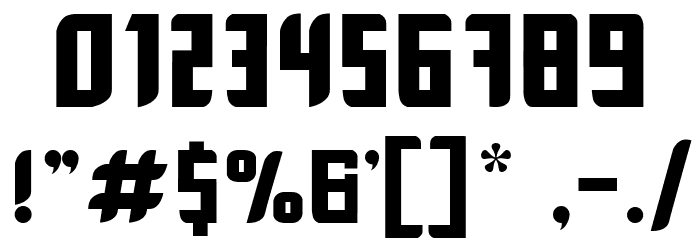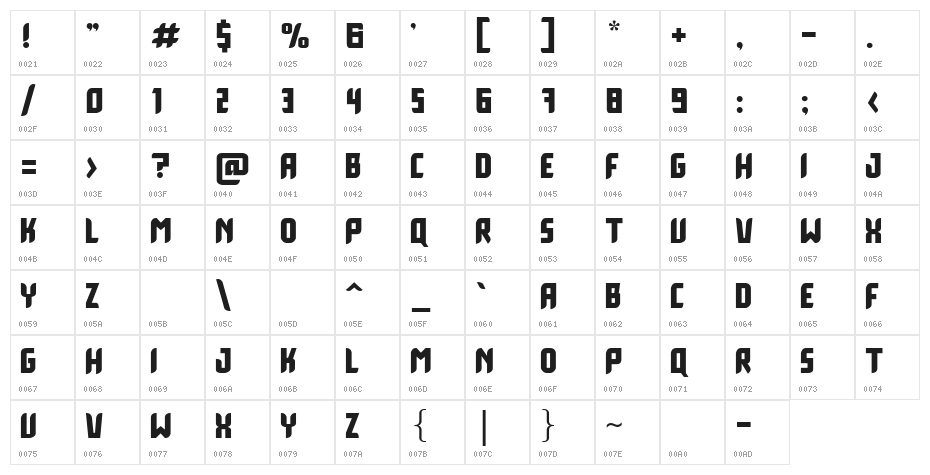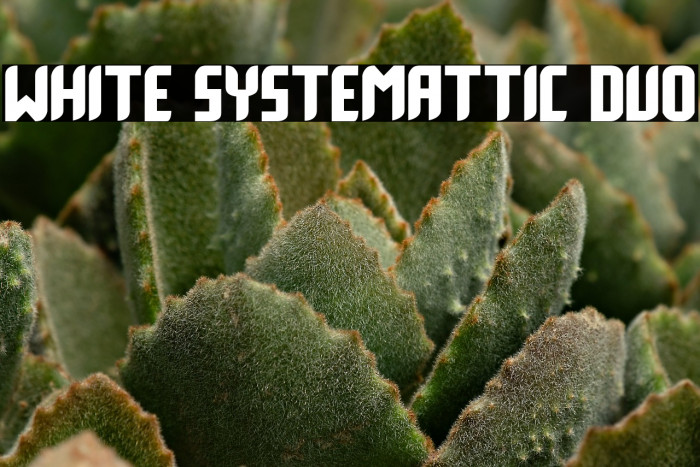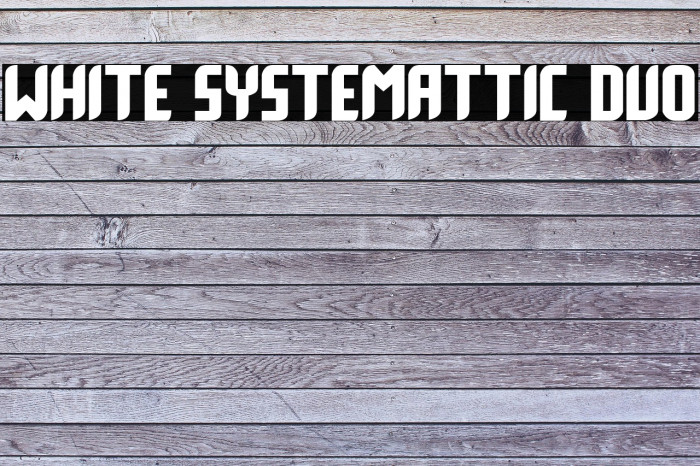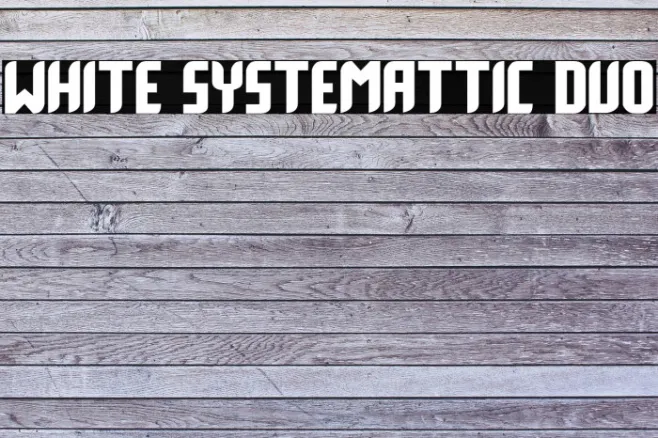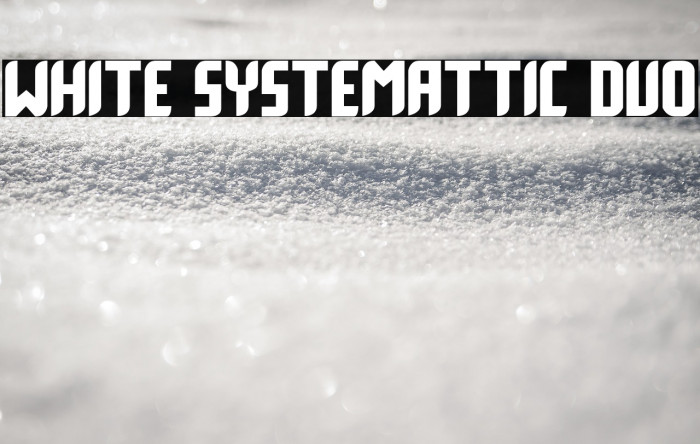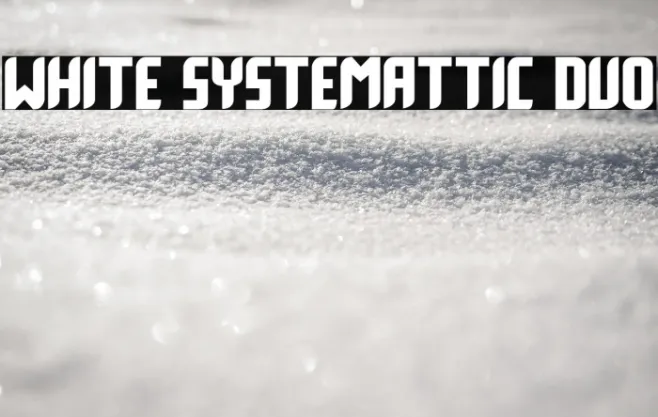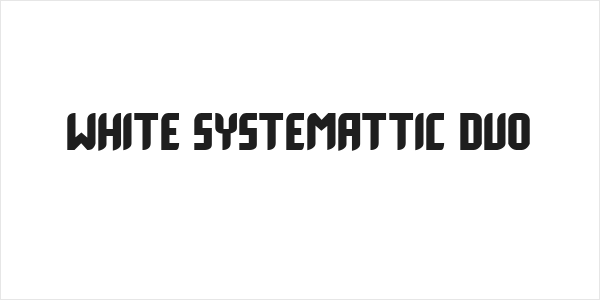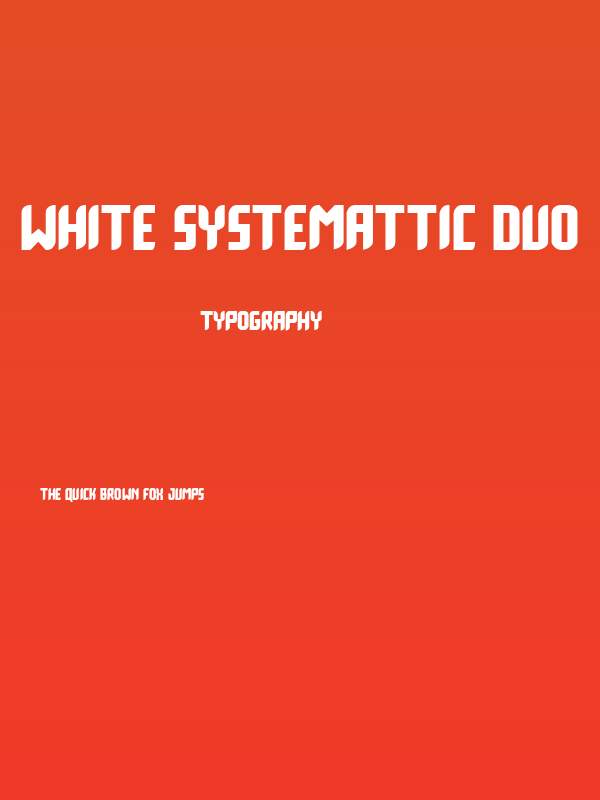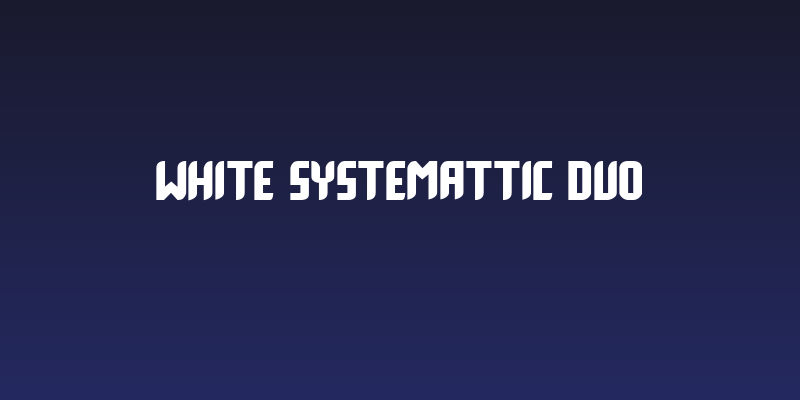
White Systemattic Duo Font
White Systemattic Duo Description
This font exhibits a bold and geometric style, characterized by its thick, block-like letters with sharp angles and a modern aesthetic. The uppercase letters are uniform in height, creating a cohesive and structured appearance. The numerals and special characters maintain the same boldness and geometric form, ensuring consistency across all glyphs. The font's design is striking and impactful, making it suitable for attention-grabbing headlines or branding materials. Its strong presence is enhanced by the lack of serifs, giving it a clean and contemporary look. The character spacing is tight, which contributes to its compact and powerful visual impact.
| Proposed Projects | Ideal for branding, posters, and headlines where a strong, modern look is desired. |